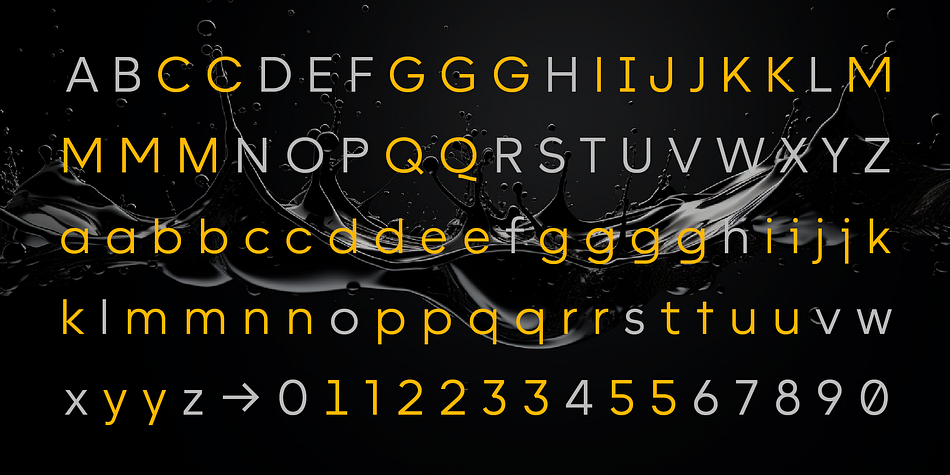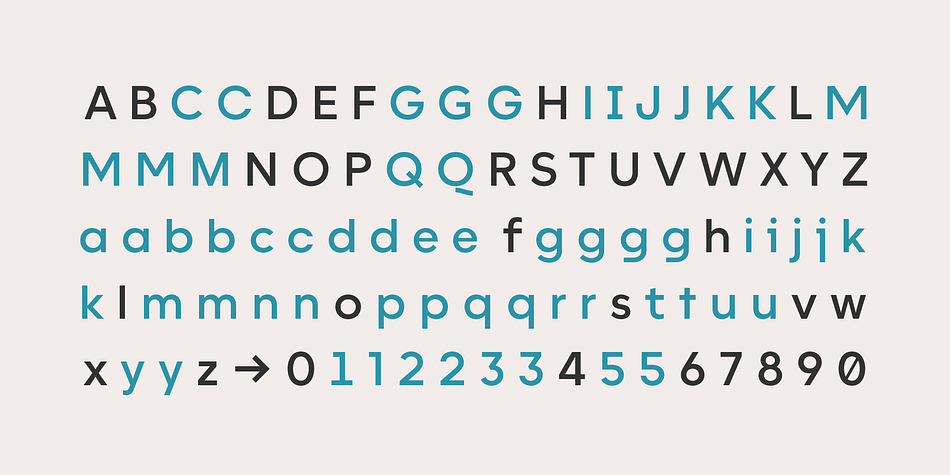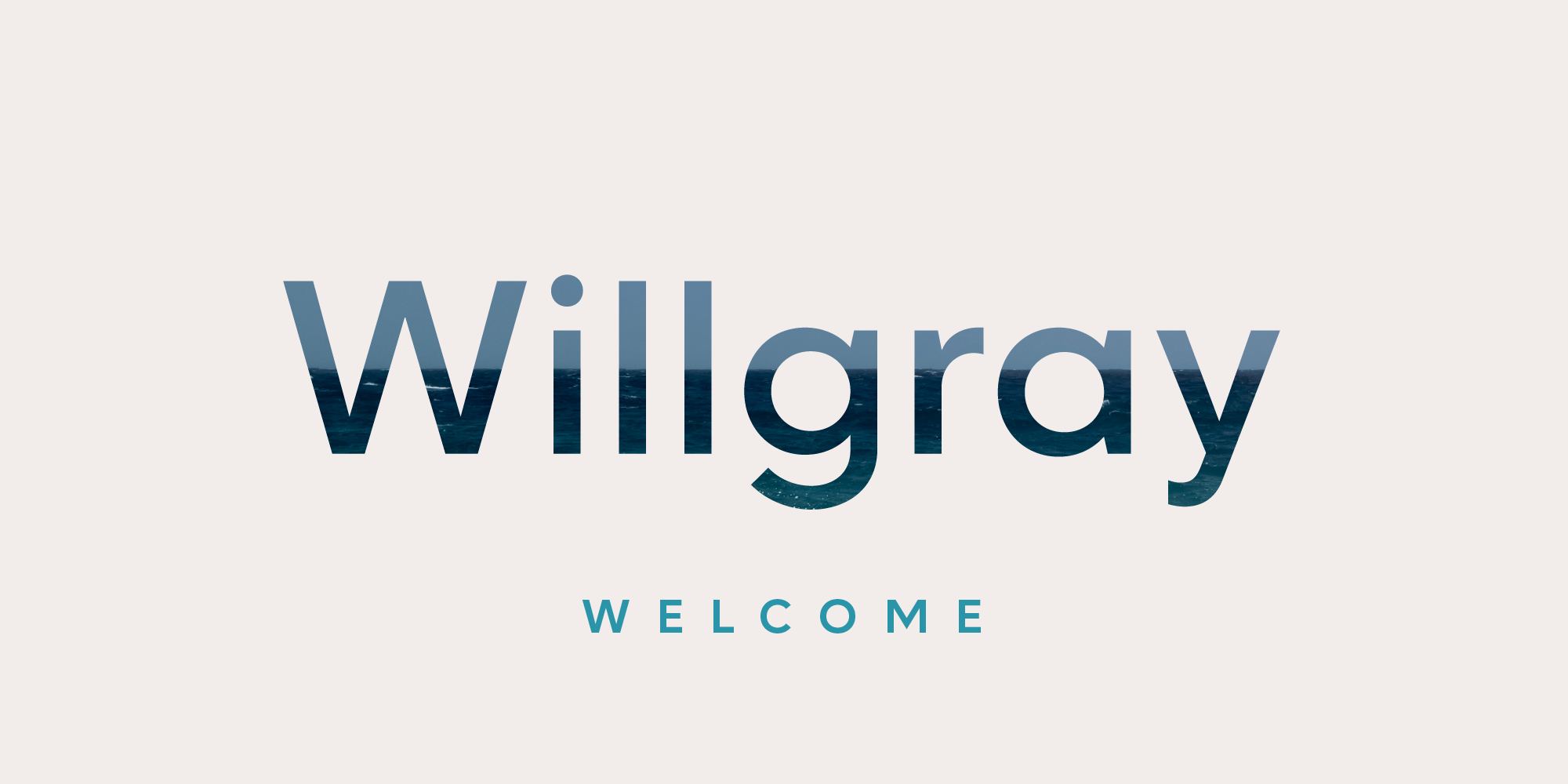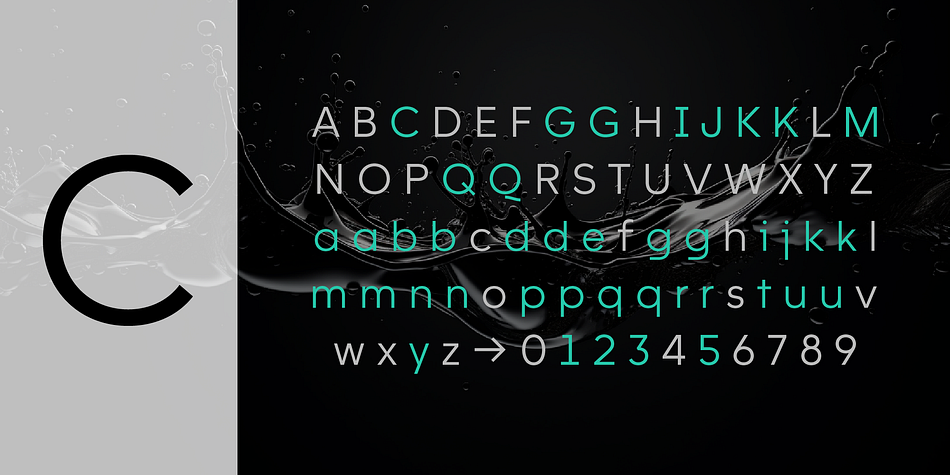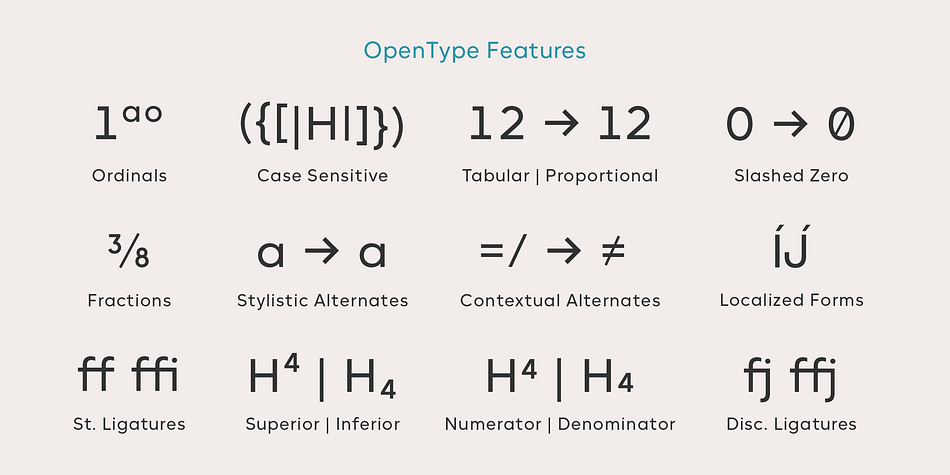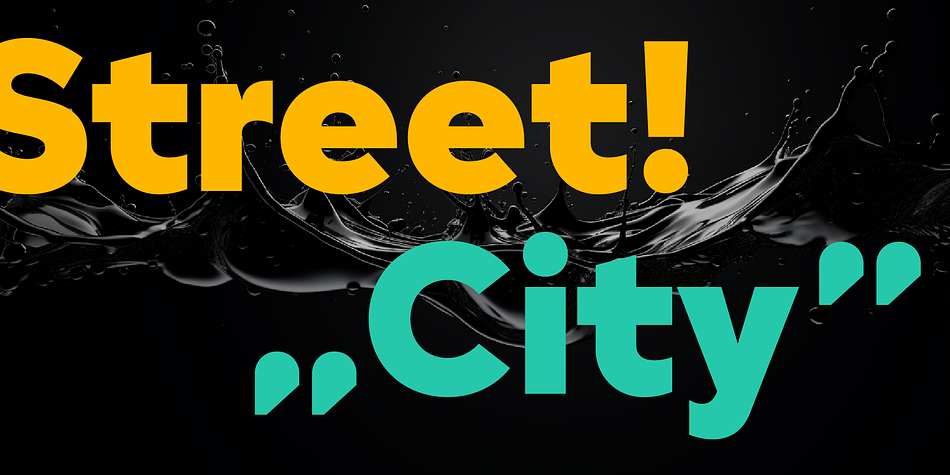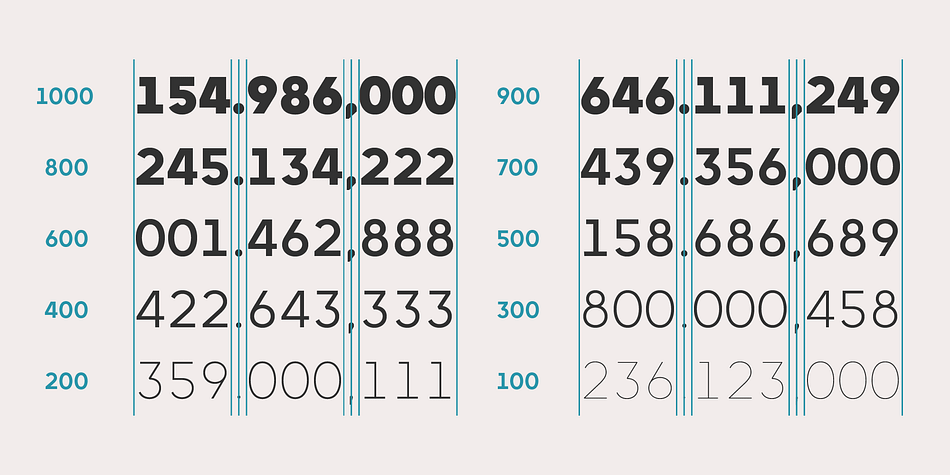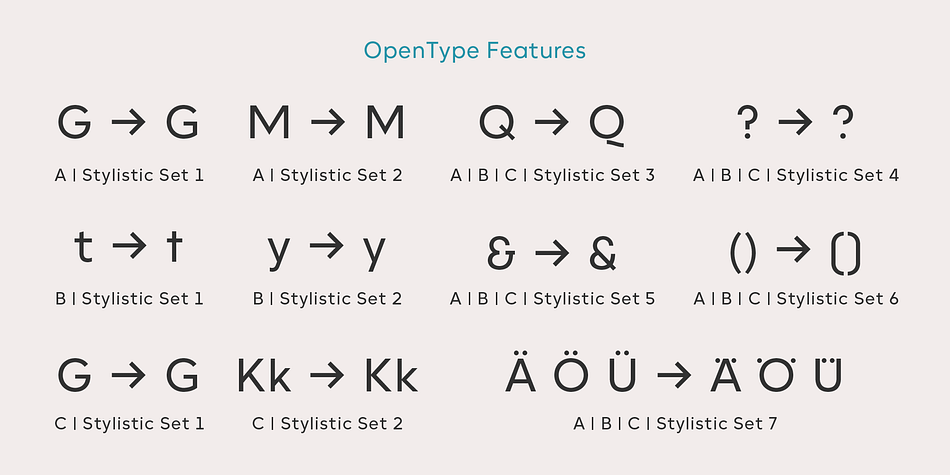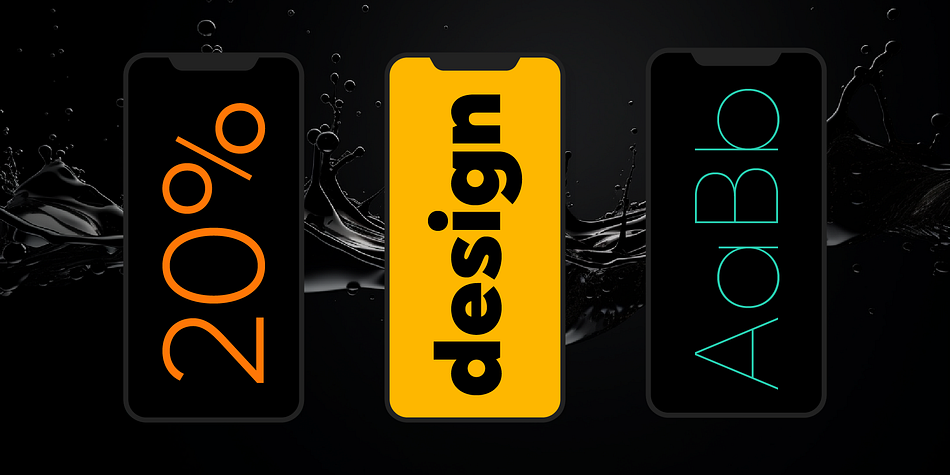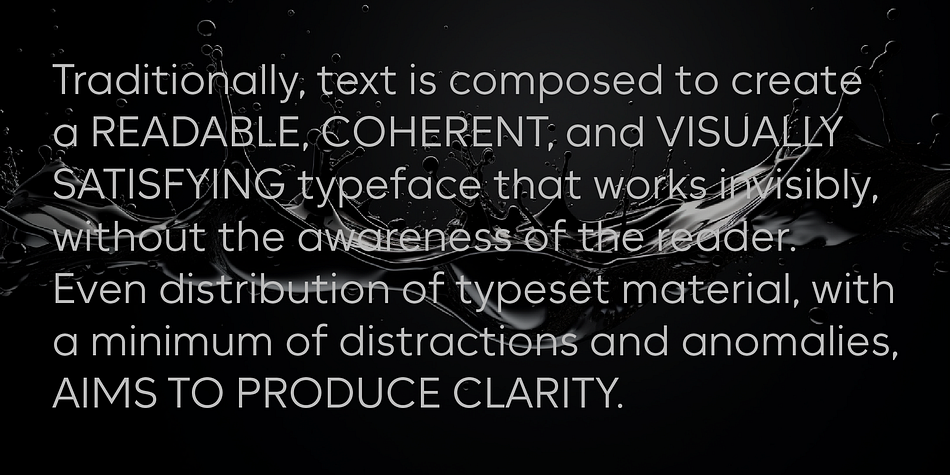
Willgray
Designed by Nikolay Savchuk, Willgray is a sans serif font family. This typeface has sixty styles and was published by NicolassFonts.
Willgray family contains three options - A, B, and C. Each option includes 20 fonts.
OpenType Features: Access All Alternates, Stylistic Alternates (Alternative n, m, p, q, r, u), Stylistic Set 1 [Option A and C](Alternative G),[Option B](Alternative t), Stylistic Set 2 [Option A](Alternative M),[Option B](Alternative y),[Option C](Alternative K,k), Stylistic Set 3 (Alternative Q), Stylistic Set 4 (Alternative ?), Stylistic Set 5 (Alternative &), Stylistic Set 6 (Alternative ()), Stylistic Set 7 (Alternative Ä, Ö, Ü), Contextual Alternates, Case-Sensitive Forms, Glyph Composition / Decomposition, Capital Spacing, Discretionary Ligatures, Denominators, Fractions, Kerning, Standard Ligatures, Localized Forms, Numerators, Ordinals, Proportional Figures, Stylistic Alternates, Scientific Inferiors, Subscript, Superscript, Tabular Figures, Slashed Zero.